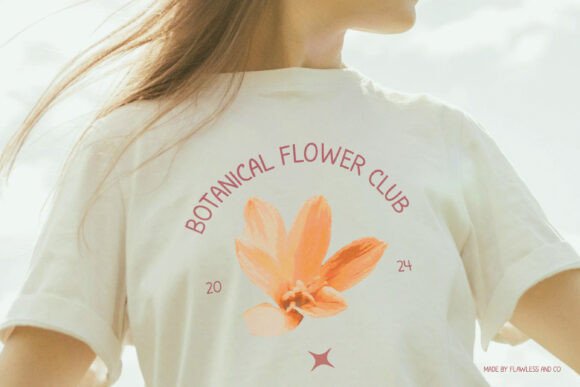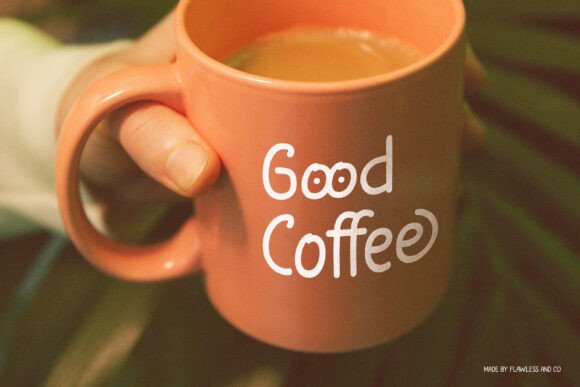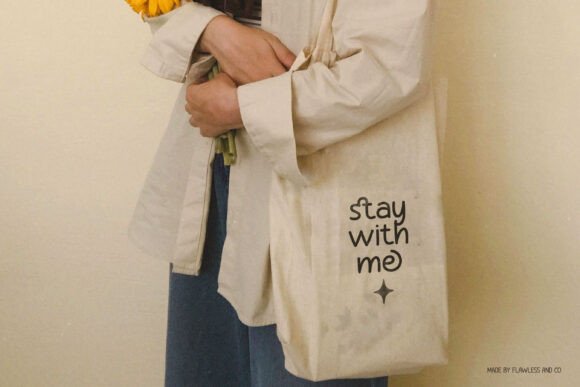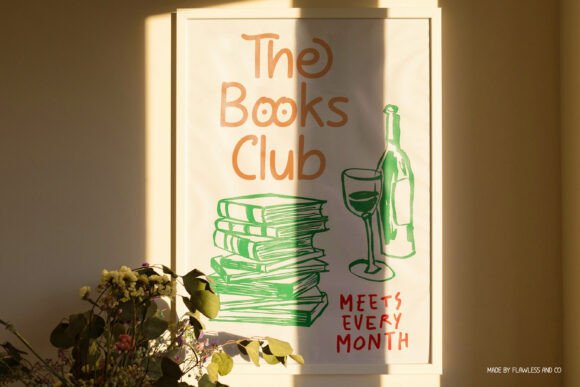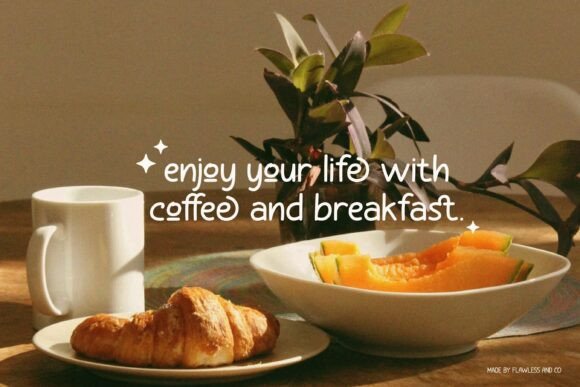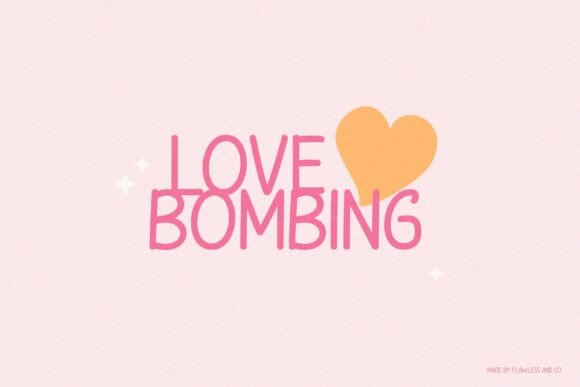
Introduction to Morguine Font
Introducing Morguine, a modern handwritten sans serif font that blends elegance with a natural touch.
With its smooth strokes and contemporary feel, Morguine is perfect for branding, logos, social media, and creative projects Add a stylish, personal touch to your designs with this beautifully crafted font.
Key Features of Morguine Font
Why Choose Morguine Font?